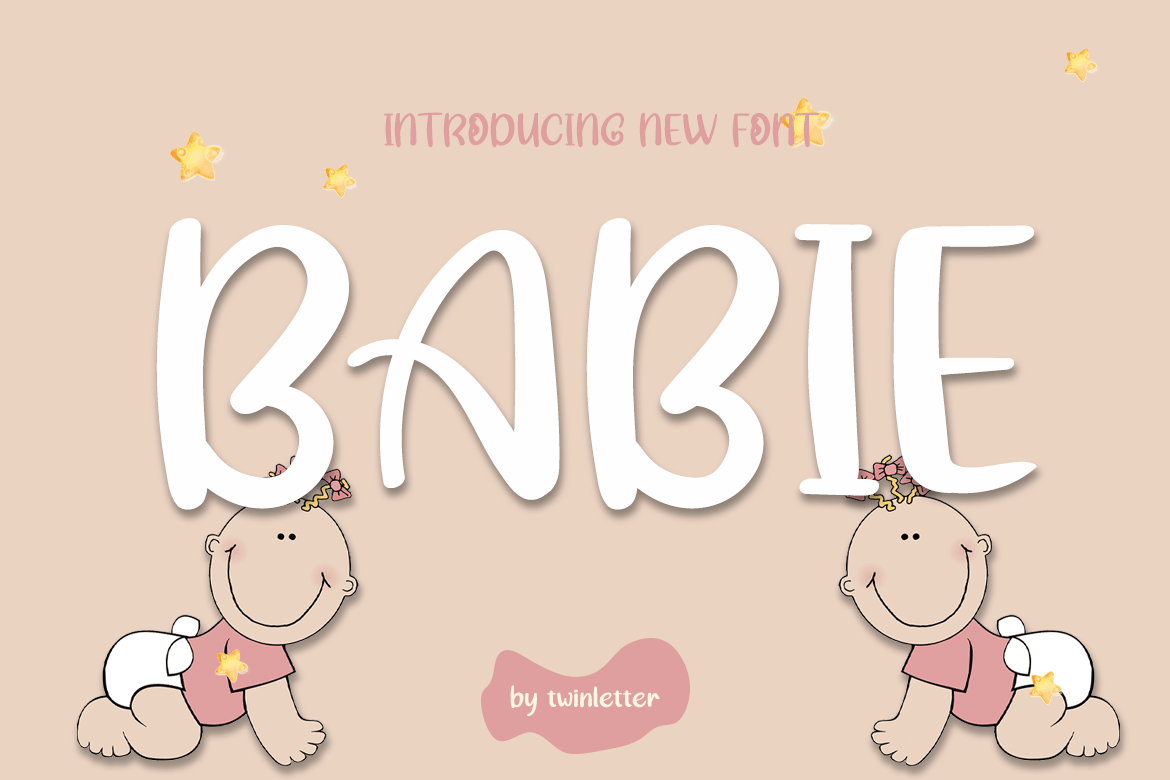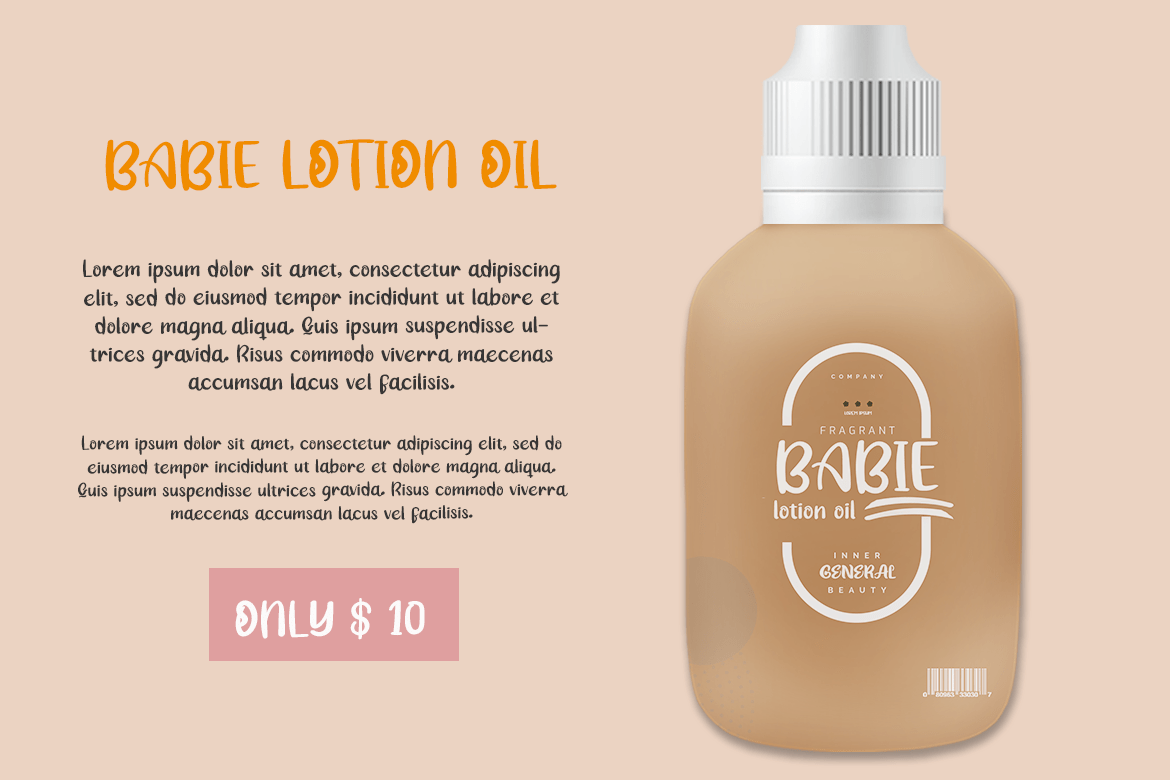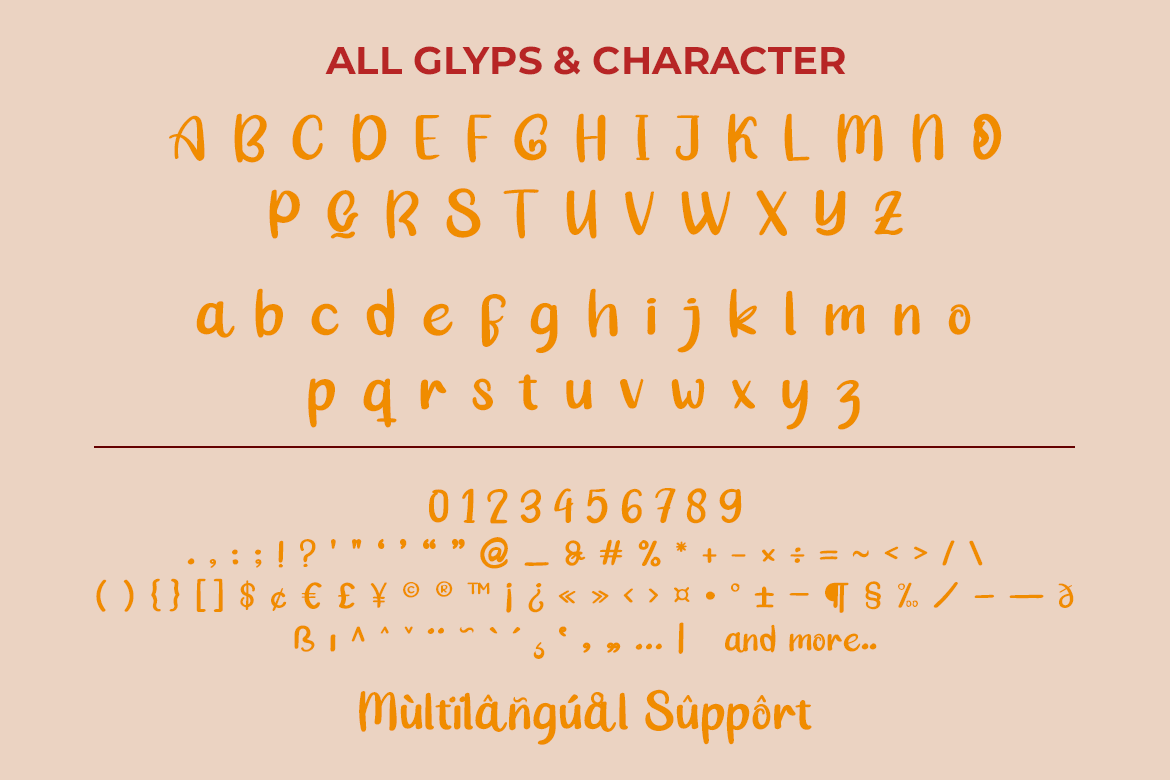
- Babie
Babie is an incredibly sweet and lovely display font. Its natural and friendly style makes it fitting to a large pool of designs. The only limit is your imagination!